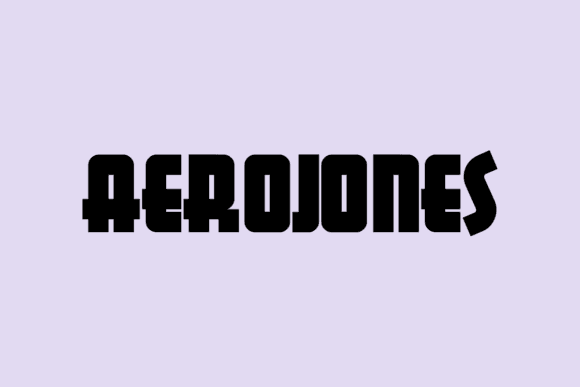
Aerojones Font for Headlines, Posters and Branding Projects
This is a bold display typeface designed to command attention in high-visibility design environments. Aerojones combines sleek letterforms with edgy accents, making it ideal for striking headlines, poster graphics, and standout branding.
As a font entity, Aerojones delivers a distinct visual identity while maintaining clean readability. Its modern styling supports both digital applications and large-format prints without sacrificing impact.
Perfect for marketers, designers, and brand strategists who want to make a powerful impression with typography.
- Headline treatments for digital and print
- Branding and logo elements
- Promotional posters and signage
- Product packaging and label designs
- Social media graphics and web banners
- Modern and angular letterform design
- Strong visual presence for branding
- Versatile across print and screen formats
- Optimized for clean, bold readability
Q: What type of font is Aerojones?
A: Aerojones is a bold, modern display font designed for high-impact uses like headlines, branding, and posters. Its clean lines and dynamic character shapes make it perfect for attracting attention while maintaining readability. Additionally, Aerojones serves as an ideal ahoe font for creative branding, allowing designers to convey their message with style and confidence. This versatile typeface pairs well with various layouts, making it a go-to choice for contemporary design projects. Its unique letterforms and sharp angles make it an eye-catching choice for those looking to make a statement. In contrast, the aglonema font characteristics and uses lend themselves well to a more elegant aesthetic, often favored in fashion and lifestyle branding. Together, these fonts can complement each other beautifully in a cohesive design project.
Q: Does it scale well for large print?
A: Absolutely. Aerojones is engineered for clarity and boldness at all sizes, including banners and signage.
| Font Style | Angular, bold, futuristic | Standard bold sans | Minimal geometric sans |